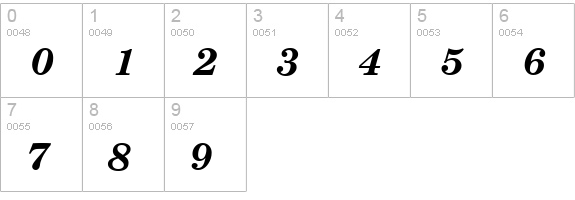
CenturySchTEE Bold Italic Font Details
CenturySchTEE Bold Italic is a strong, high-contrast, italic variant in the CenturySchTEE typeface family \xE2\x80\x94 well suited to headlines, attention-grabbing titles, and strong calls-to-action.
CenturySchTEE Bold Italic is a striking and modern font that exudes confidence and sophistication. Its bold and italic design adds a touch of flair to any project, making it perfect for headings, titles, and other prominent text elements. The sharp angles and clean lines give this font a contemporary edge, while still maintaining a sense of elegance. What sets CenturySchTEE Bold Italic apart is that it is not only visually appealing, but also free to use. Whether you're a design enthusiast, a professional graphic designer, or just someone looking to add a touch of style to your projects, this font is freely available for download at FontsMarket.com. With its versatility and bold aesthetic, CenturySchTEE Bold Italic is sure to make a statement in any design you choose to use it in.